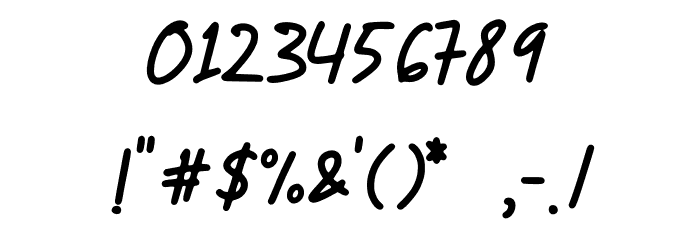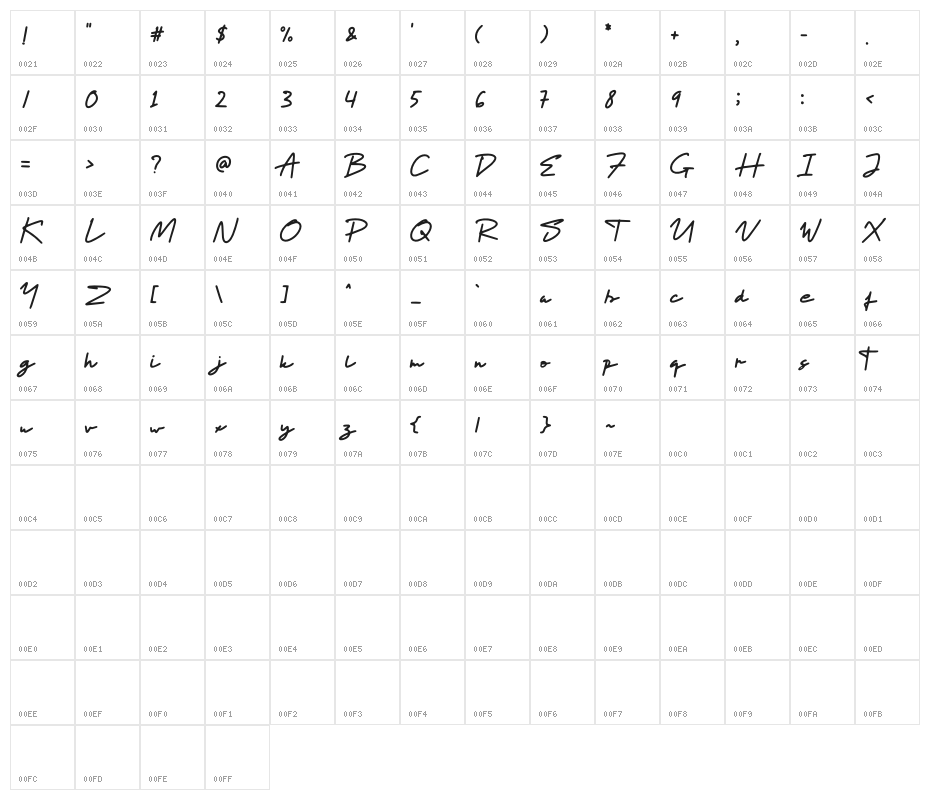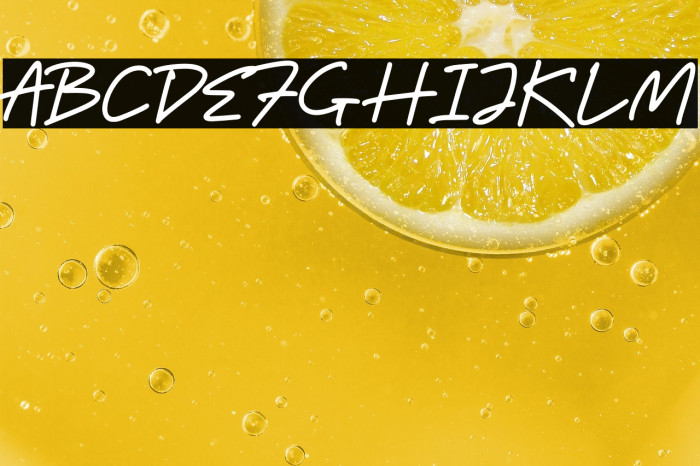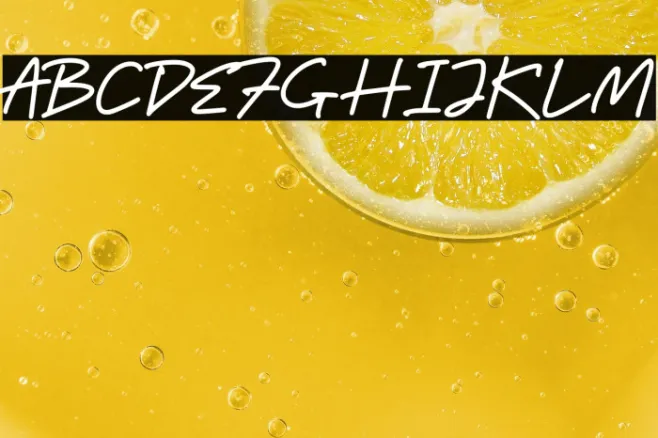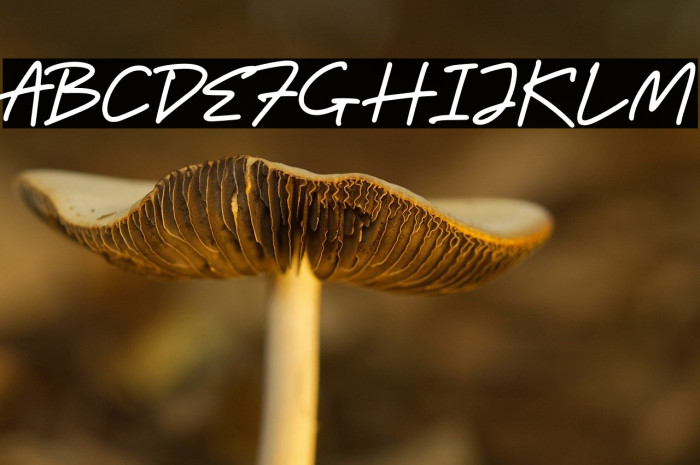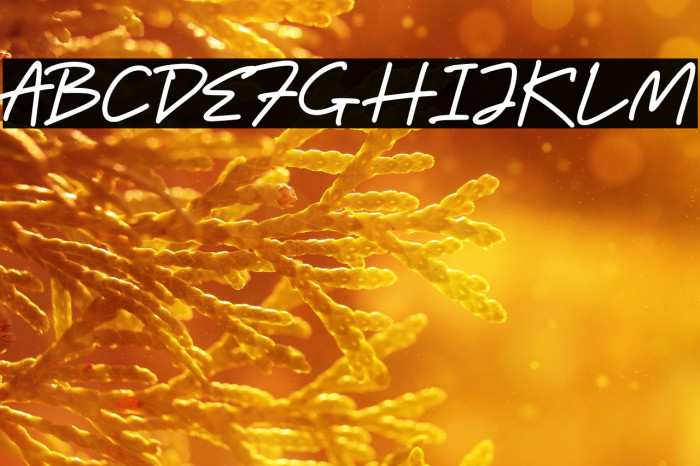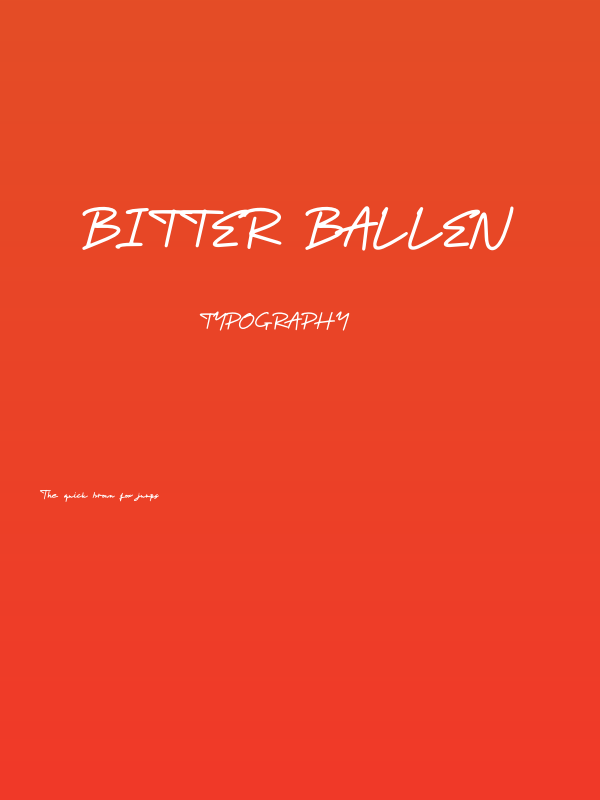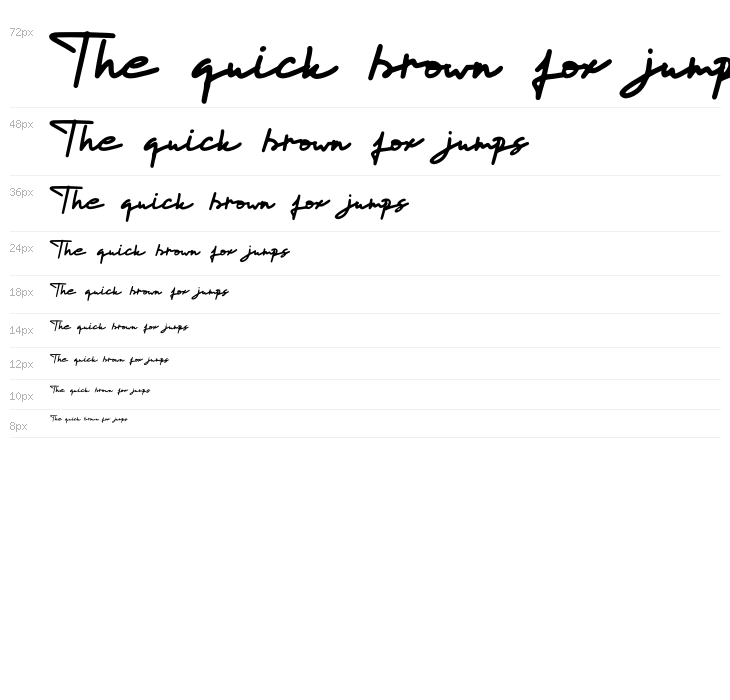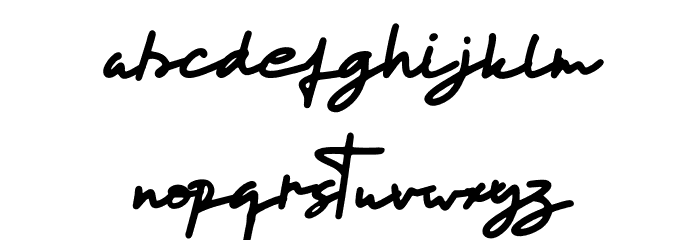
Bitter Ballen Font
Bitter Ballen Description
This font exudes a casual and fluid handwritten style, characterized by its smooth, flowing lines and slightly slanted letters. The uppercase and lowercase letters maintain a consistent rhythm, giving the text a natural, personal touch. The numerals and special characters complement the alphabet with a similar handwritten aesthetic, making the font versatile for various uses. The strokes are moderately thick, providing good readability while retaining an elegant, informal appearance. This font is ideal for projects that require a personal, human touch, such as invitations, greeting cards, or personal branding.
| Overall Style | Casual, Personal |
| Proposed Projects | Ideal for invitations, greeting cards, personal branding, and creative projects requiring a personal touch. |